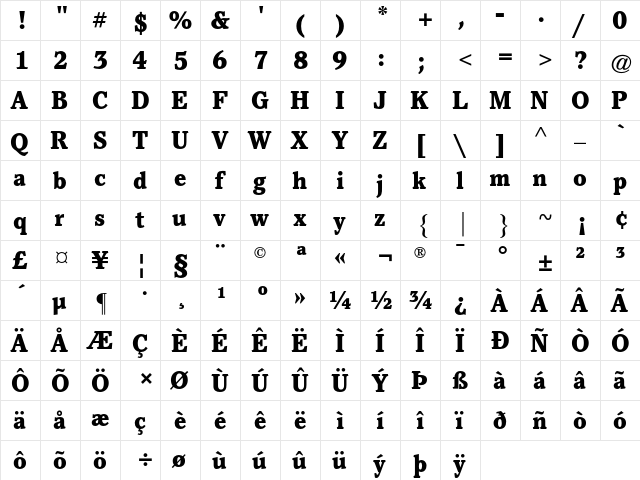
ATPacella Regular
Design Context for ATPacella Typeface
ATPacella is a composed and adaptable typeface that performs quietly and consistently across a wide range of design contexts.